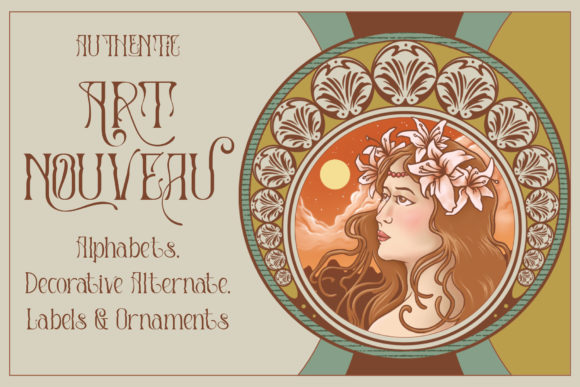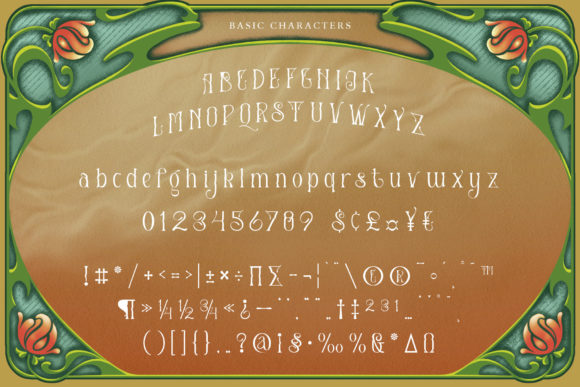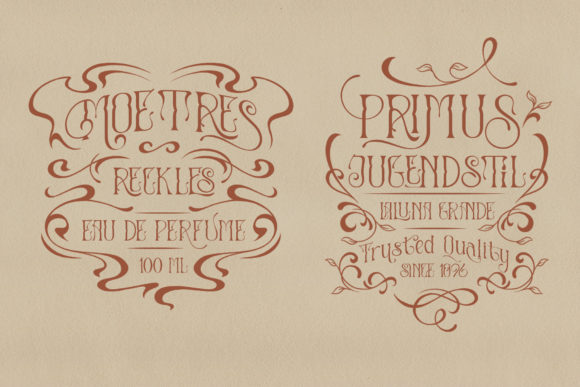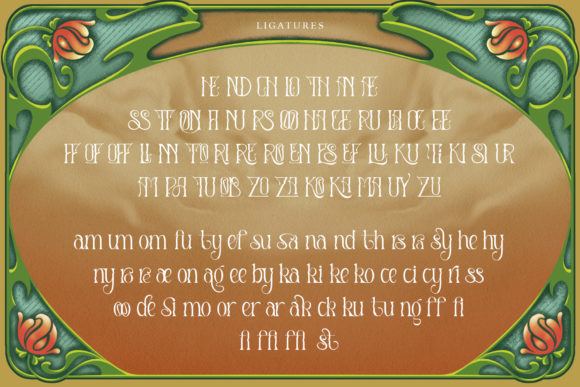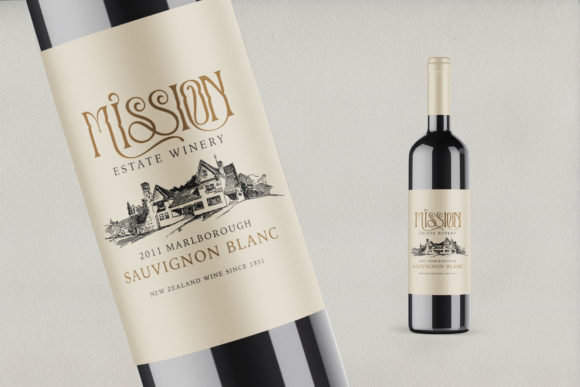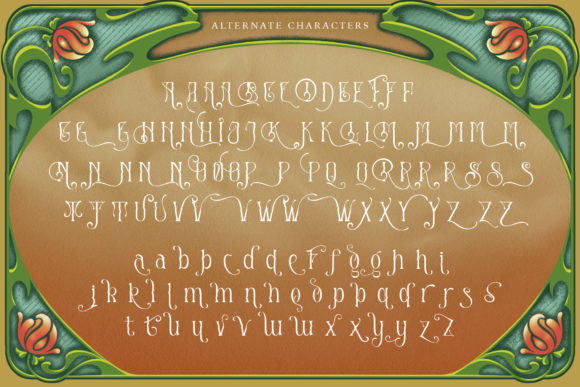
Introduction to Molucas Font
Have you ever found yourself stuck on a creative project, searching for that perfect font to elevate your design? I know I have. Remember that moment when you finally stumble upon a font that perfectly captures the essence of your idea? It’s like a breath of fresh air, and suddenly, everything falls into place.
| 👤 Author | Burntilldead |
For designers, finding the right font can be a game-changer. It’s what sets apart a good design from a great one. That’s why we’re excited to introduce you to the Molucas Font, a stunning typeface inspired by the classic signs of the late 19th and early 20th centuries. With its ornamental style flourish, Molucas Font is perfect for making a logo, label designs, poster, packaging designs, and more.
What makes Molucas Font truly valuable is its versatility and high quality. It’s a design resource that’s not only beautiful but also free to download. Imagine having the flexibility to use it on a transparent background or experimenting with different colors – the possibilities are endless. Whether you’re a seasoned designer or just starting out, Molucas Font is a must-have in your creative arsenal.
Key Features of Molucas Font
- High-quality font design suitable for creative projects and designs that require a unique touch.
- Translucent background effect allows for seamless integration with transparent backgrounds and images.
- Available in 5 different styles and weights, offering a range of design options for your creative project.
- Designed with high-resolution graphics in mind, suitable for printing and digital display at 300 DPI resolution.
- Unique, hand-crafted design elements that add a touch of elegance and sophistication to any creative project.
Honest Review: Molucas Font
I recently had the opportunity to work with the Molucas Font, and I must say it’s been a game-changer for my creative projects. As a designer, I’m always on the lookout for high-quality design resources that can help elevate my work, and Molucas Font definitely delivers.
What works well: ✨ The font is incredibly versatile and can be used for a wide range of creative projects, from logos to brochures. The transparent background option is also a major plus, allowing me to easily customize the font to fit my design needs. The free download is also a huge bonus, making it accessible to designers of all levels.
Some limitations: ⚠️ While the font is high-quality, it’s not without its flaws. The font family is relatively small, which can make it difficult to find the perfect combination of styles for a particular project. Additionally, the font may not be suitable for all types of designs, particularly those that require a lot of bold or italic text.
Overall, I’m really impressed with the Molucas Font. It’s a great addition to any designer’s toolkit, and I would highly recommend it to anyone looking for a high-quality, versatile font.
- Versatile and suitable for a wide range of creative projects
Tips for Getting the Most Out of Molucas Font
Use the Molucas Font in combination with other design elements, such as graphics and images, to create a cohesive and visually appealing design. Experiment with different font sizes, colors, and styles to achieve the desired effect. You can also use the font in conjunction with other design resources, such as templates and graphics, to create a unique and creative project.
The Molucas Font is suitable for a variety of creative projects, including logos, graphics, presentations, and documents. It is also a great resource for designers who need a high-quality font with a transparent background. With its free download option, it’s an excellent choice for designers on a budget or those who want to add a professional touch to their projects.